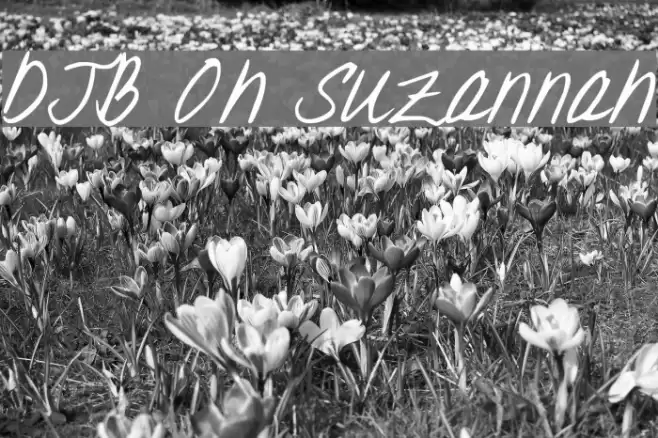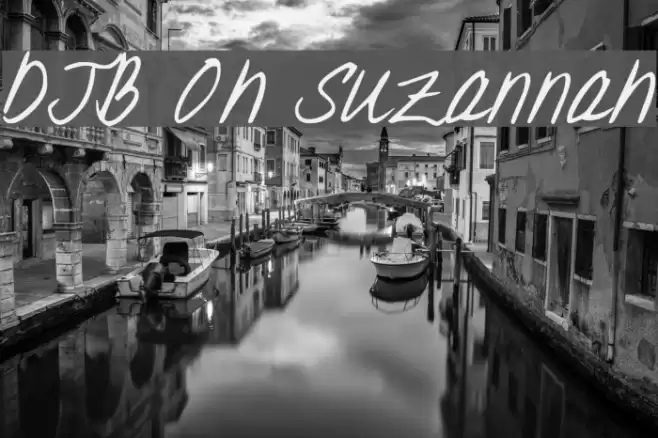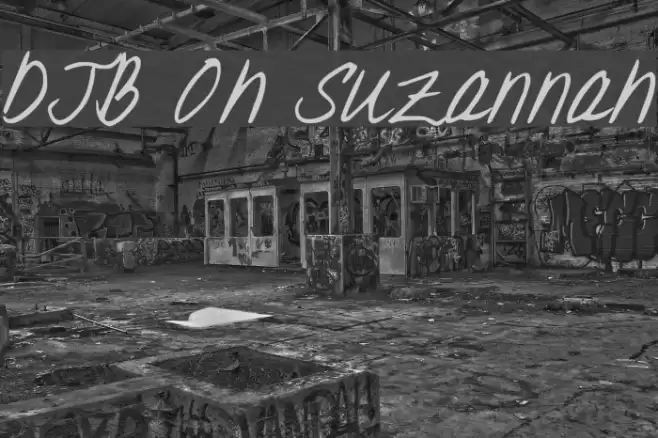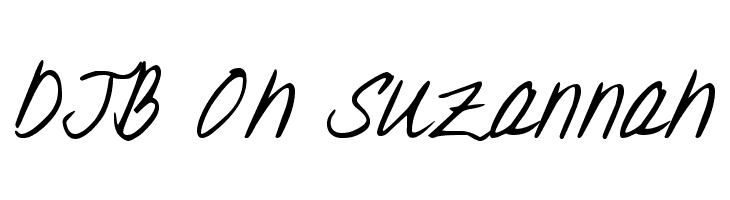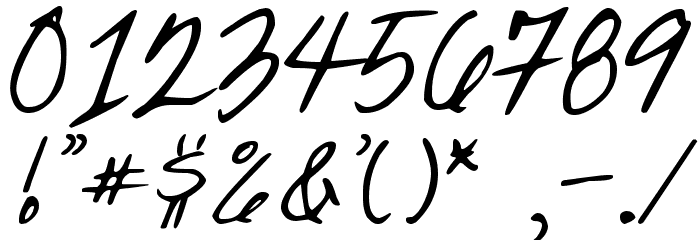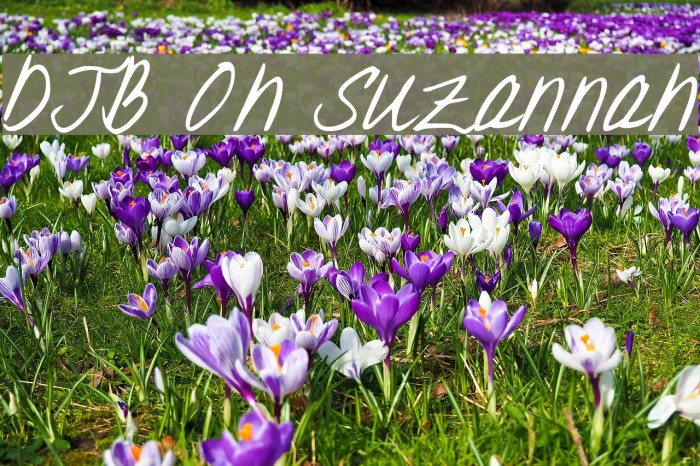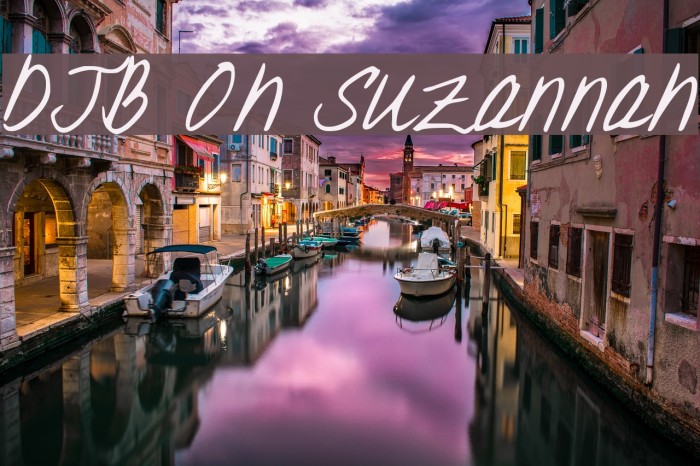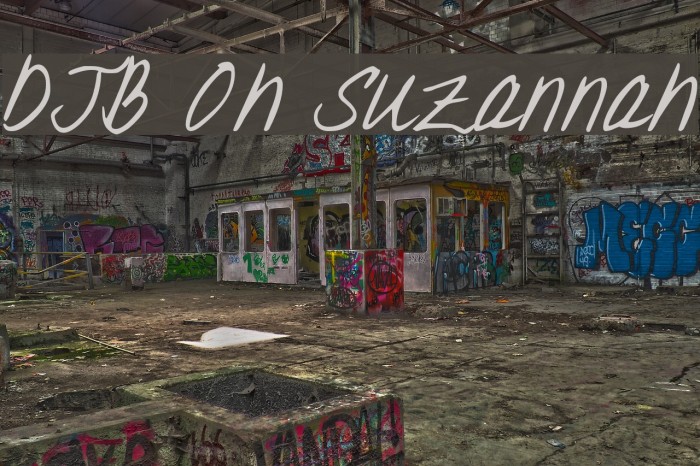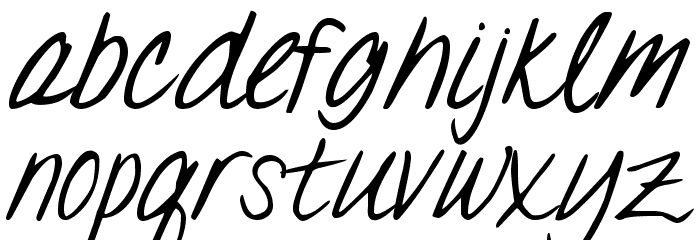
DJB Oh Suzannah Font
DJB Oh Suzannah Description
This font features a playful and casual handwritten style, characterized by its fluid and dynamic strokes. The letters are slightly slanted, giving it an informal and approachable appearance. The uppercase and lowercase letters maintain a consistent flow, with rounded edges and varying stroke widths that add a touch of whimsy. The numerals and special characters follow the same playful aesthetic, ensuring a cohesive look across all text. This font is perfect for projects that require a personal touch or a friendly, informal vibe.
A playful, casual handwritten font with fluid strokes and a dynamic style from Uncategorized fonts.
- Proposed Projects: Ideal for greeting cards, personal invitations, playful branding, and social media graphics.
- Overall Style: Casual, Playful
- Use Case: Logos, Headlines, Informal Text